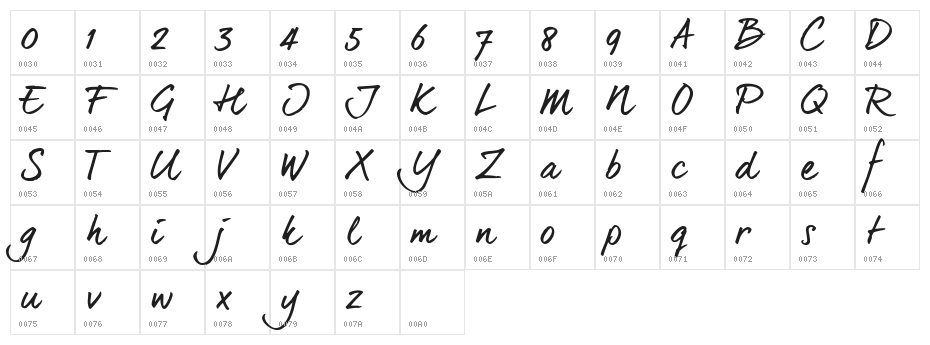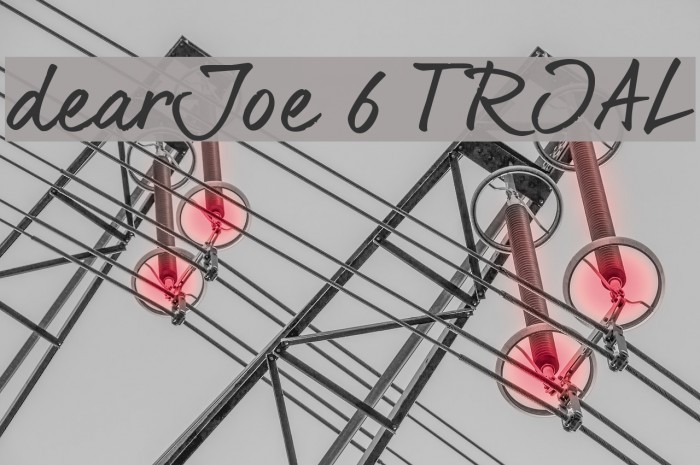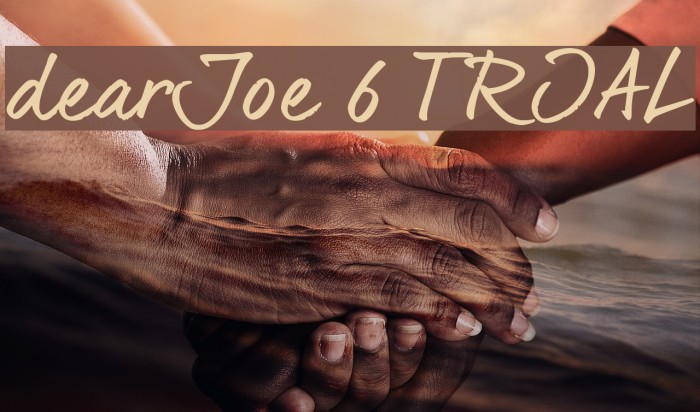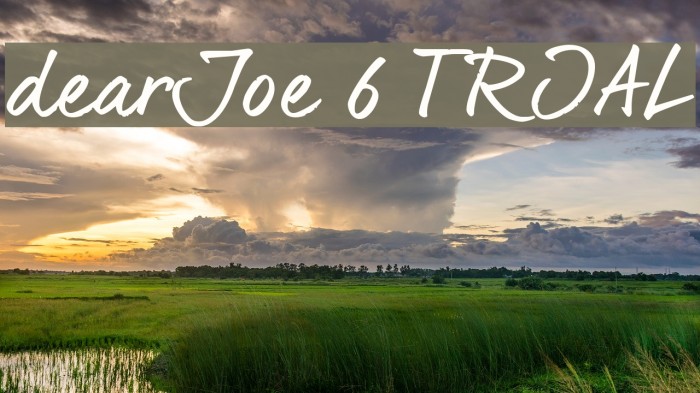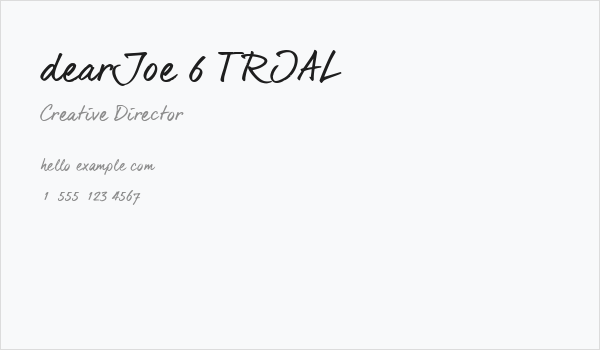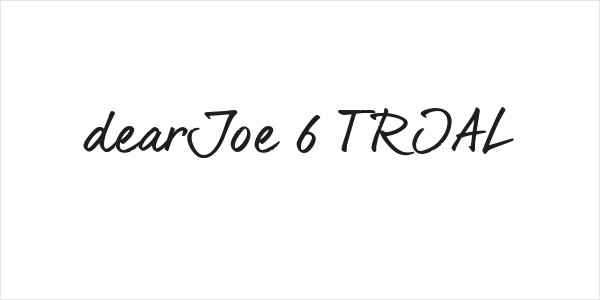
dearJoe 6 TRIAL Font
dearJoe 6 TRIAL Description
This font exhibits a dynamic and fluid script style, characterized by its handwritten appearance. The letters are connected in a cursive manner, giving it a personal and informal touch. The strokes are smooth and slightly varied in thickness, adding a natural flow to the text. The uppercase letters maintain a consistent height, while the lowercase letters show a slight slant, enhancing the casual feel. The numerals and special characters are crafted to match the overall style, ensuring uniformity across all characters. This font is ideal for projects that require a personal or artistic touch, such as invitations, greeting cards, or creative branding.
| Overall Style | Casual, Artistic |
| Proposed Projects | Ideal for invitations, greeting cards, artistic branding, and personal projects. |